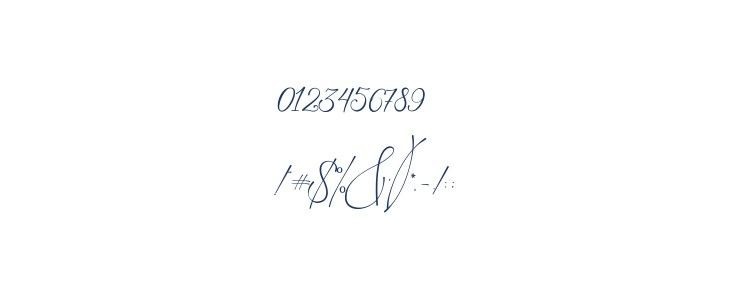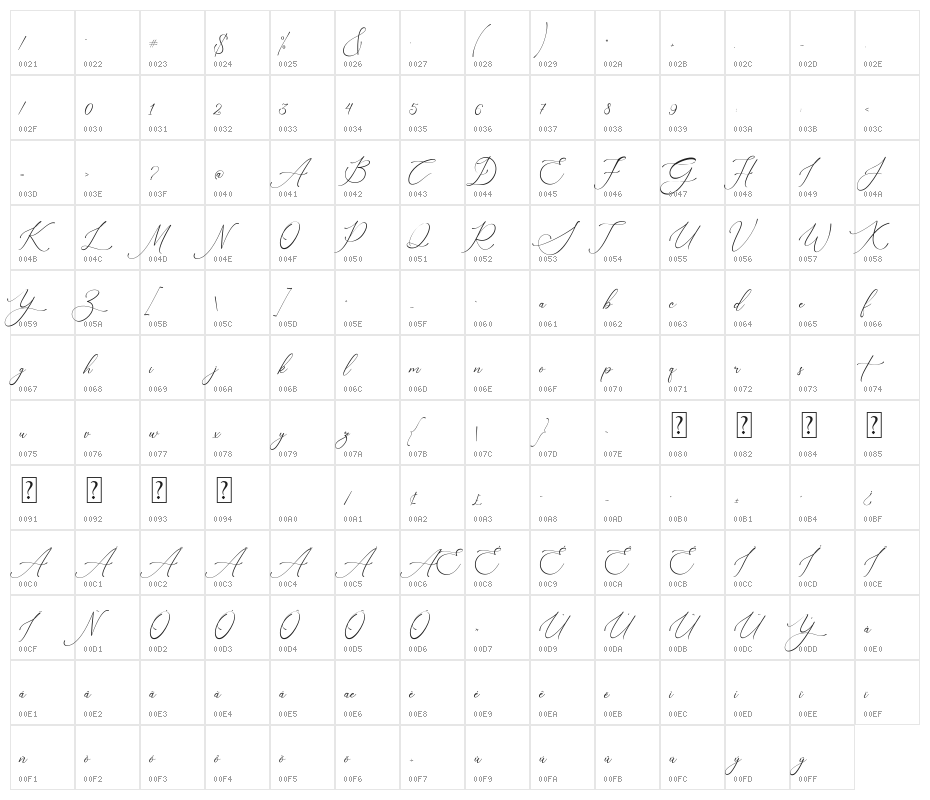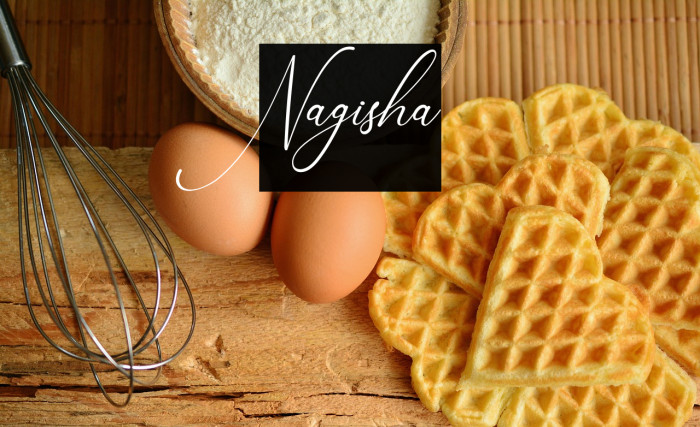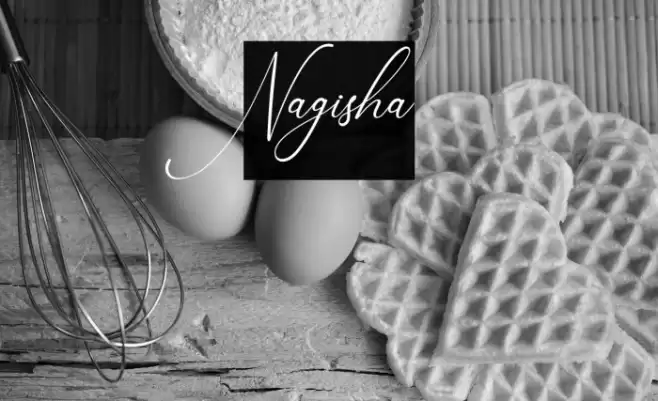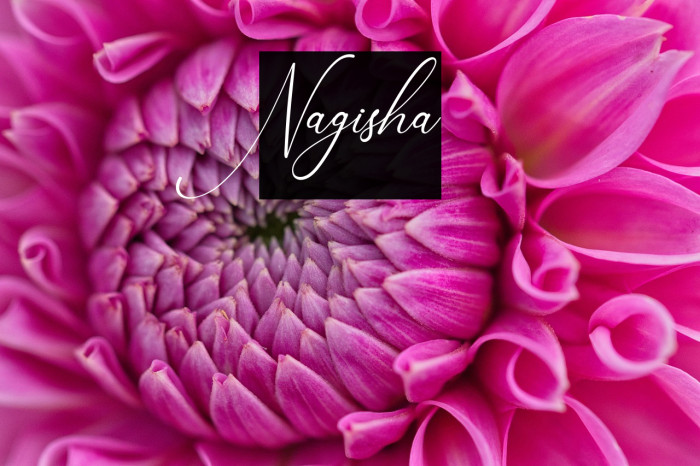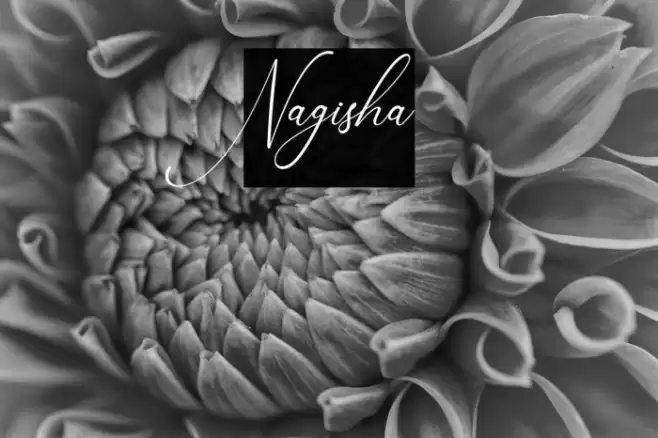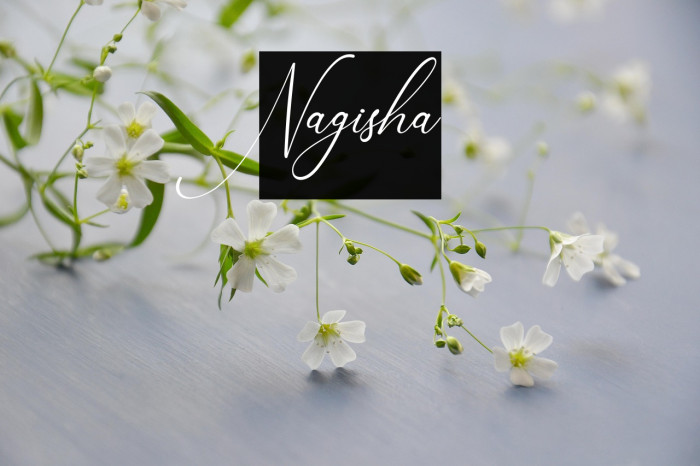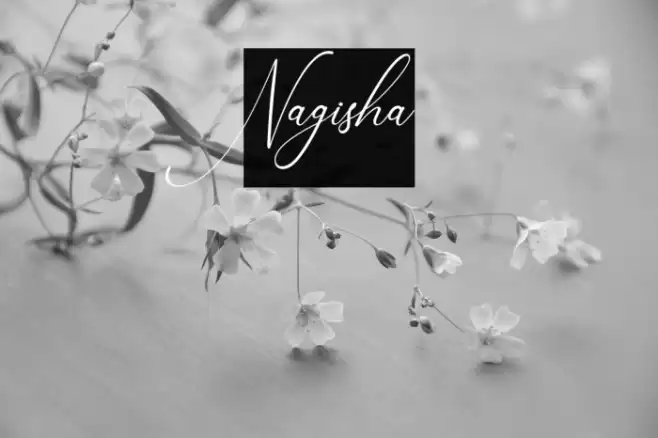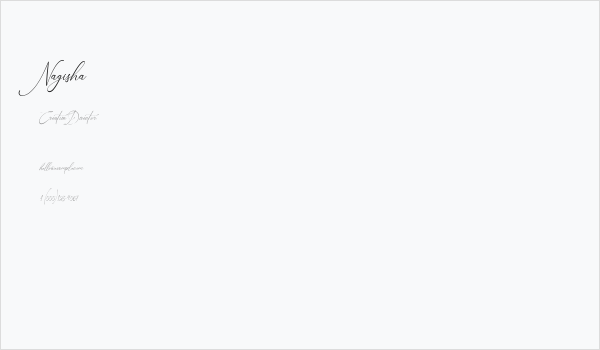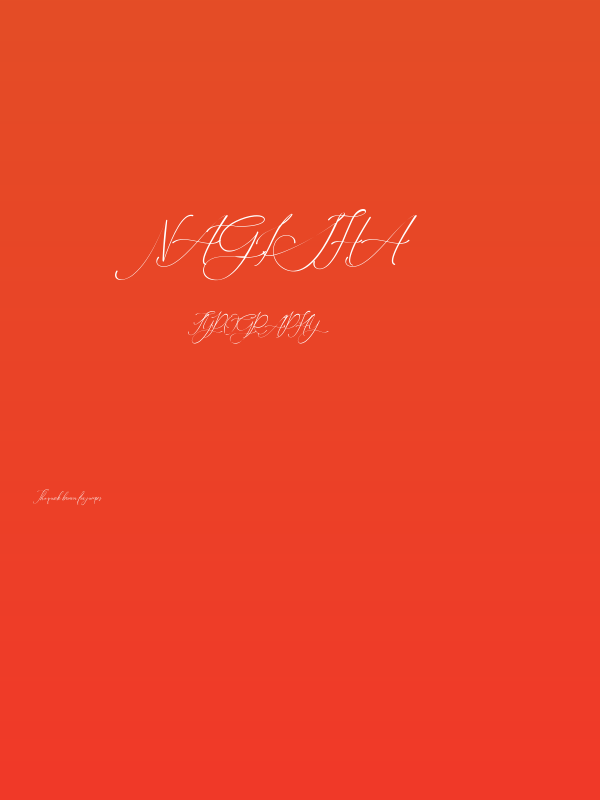
Nagisha Font
Nagisha Description
This elegant script font features flowing, interconnected letters with a classic calligraphic style. The uppercase letters are particularly ornate, with sweeping lines and flourishes that give a sense of movement and sophistication. The lowercase letters maintain a consistent style, with gentle curves and a graceful appearance. The numerals are designed to match the fluidity of the alphabet, while the special characters integrate seamlessly with the overall aesthetic. This font's delicate strokes and high contrast between thick and thin lines make it ideal for formal and decorative uses.
| Proposed Projects | Ideal for wedding invitations, elegant branding, luxury product packaging, and decorative headings. |